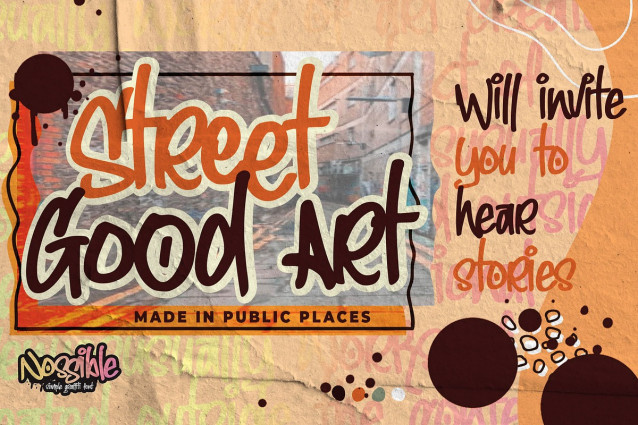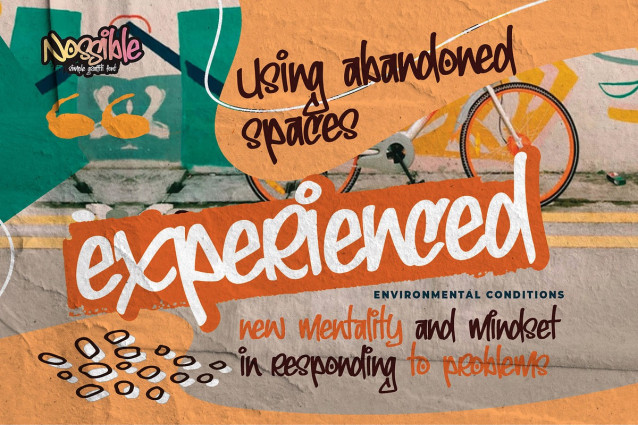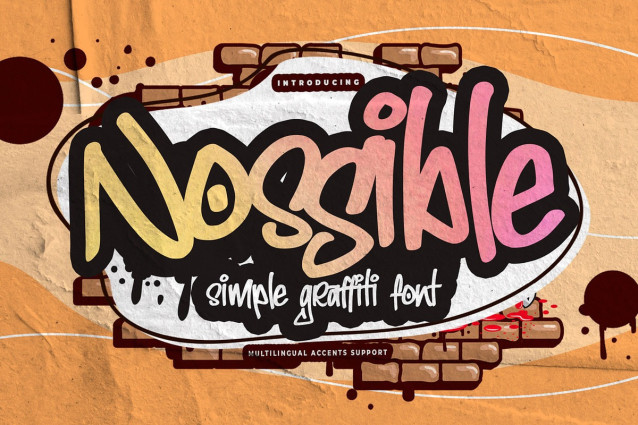
Nossible Font
Nossible Font is a Graffiti Hand Drawn feel. This handmade font will make your design has a beautiful natural touch for each details. It is perfect for any design project as Invitation,logo, book cover, craft or any design purposes,photos, photography overlays, signs, window art, scrapbooking, tags and so much more! This font is PUA encoded which means you can access all of the magical glyphs with ease! It also features a wealth of special features including You can activate 11 Ligatures OpenType panel.